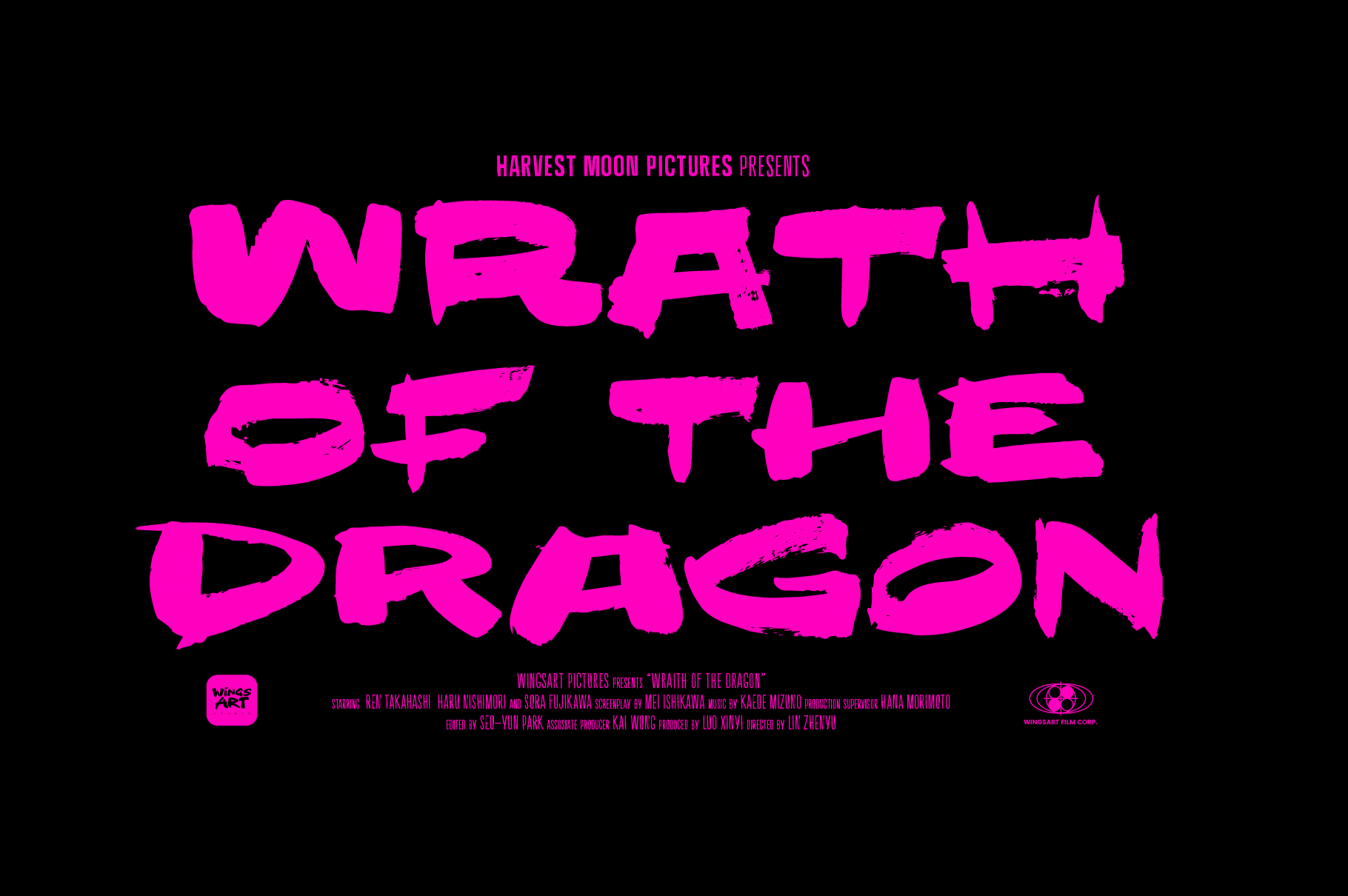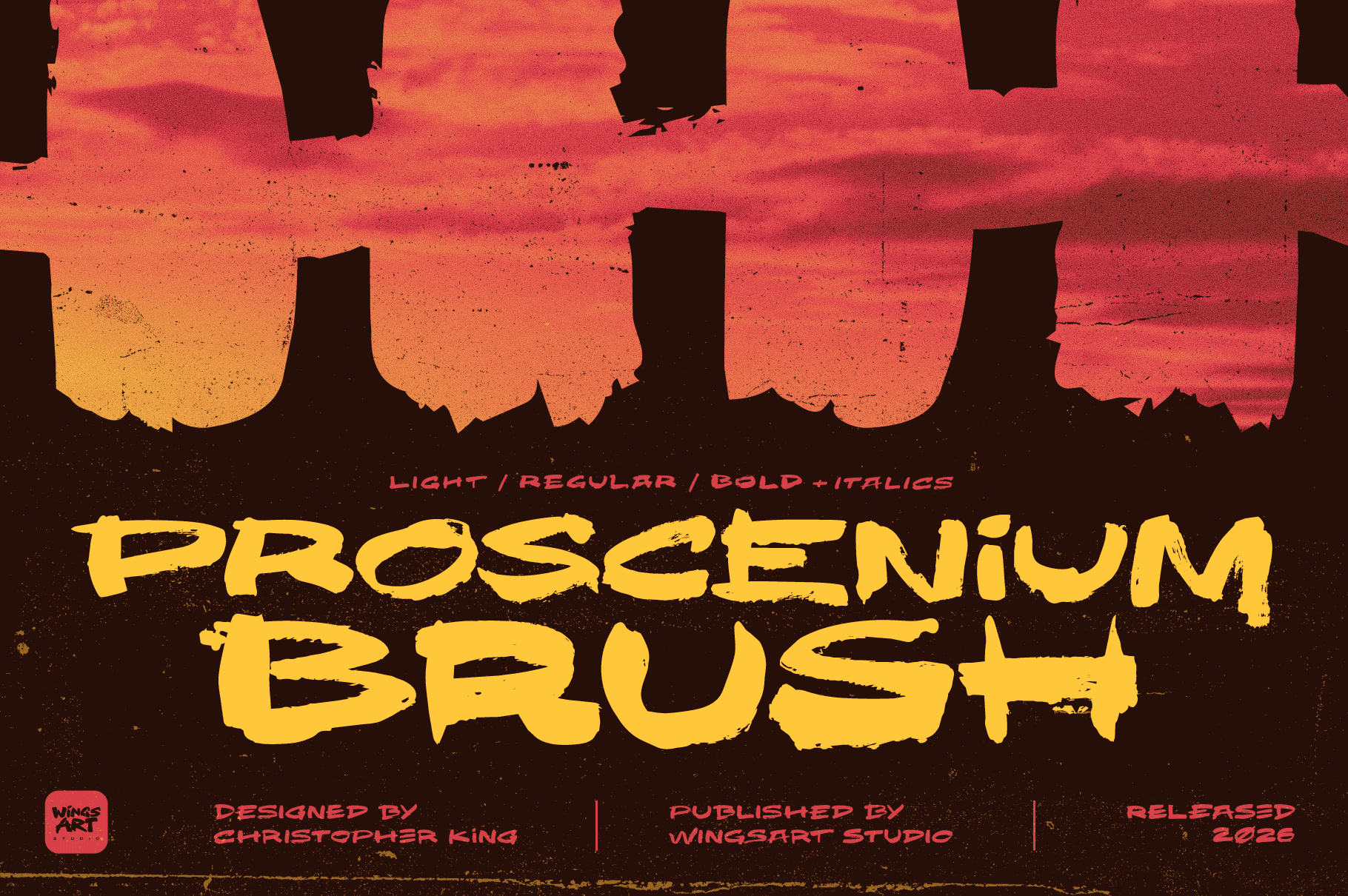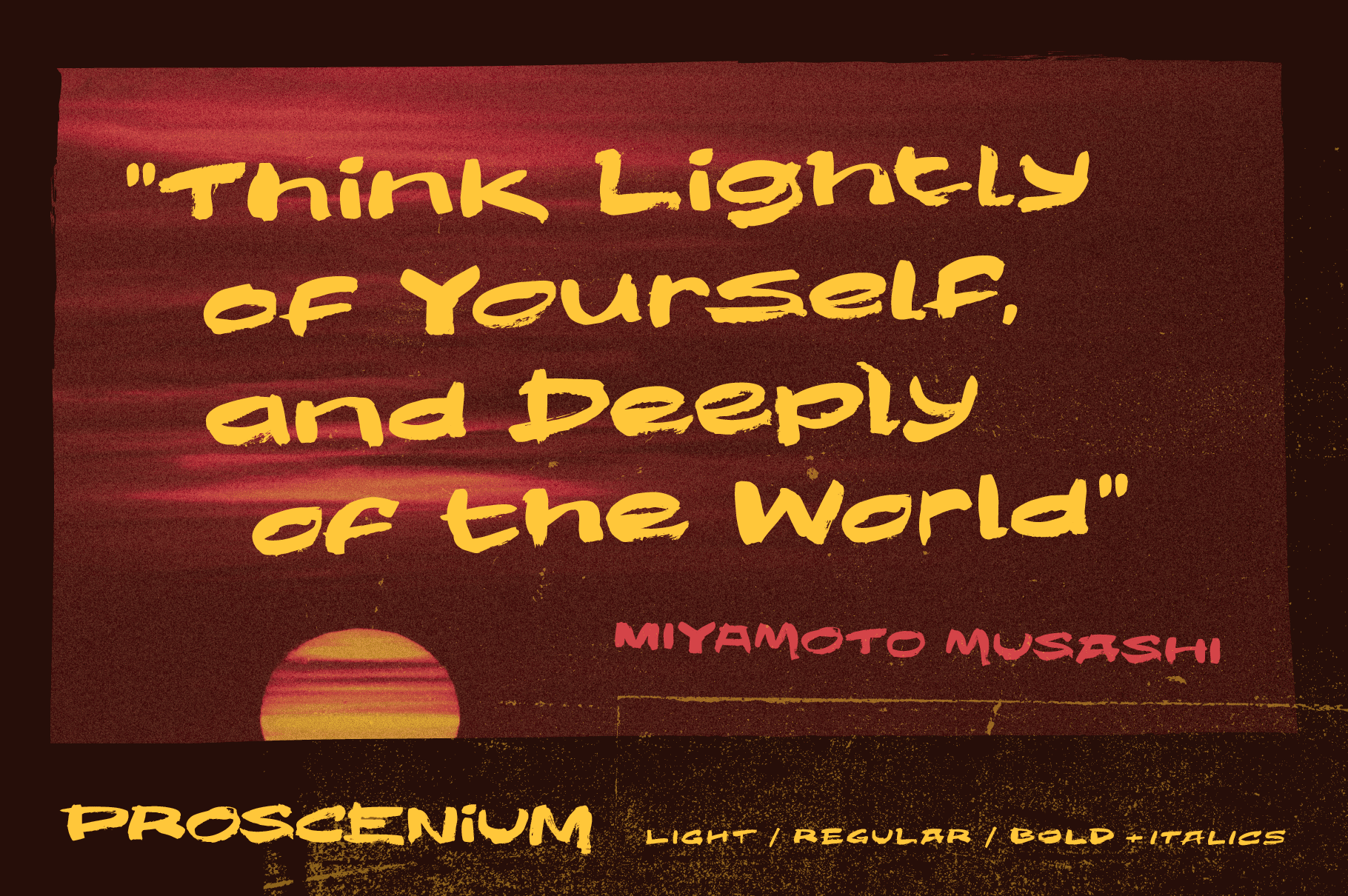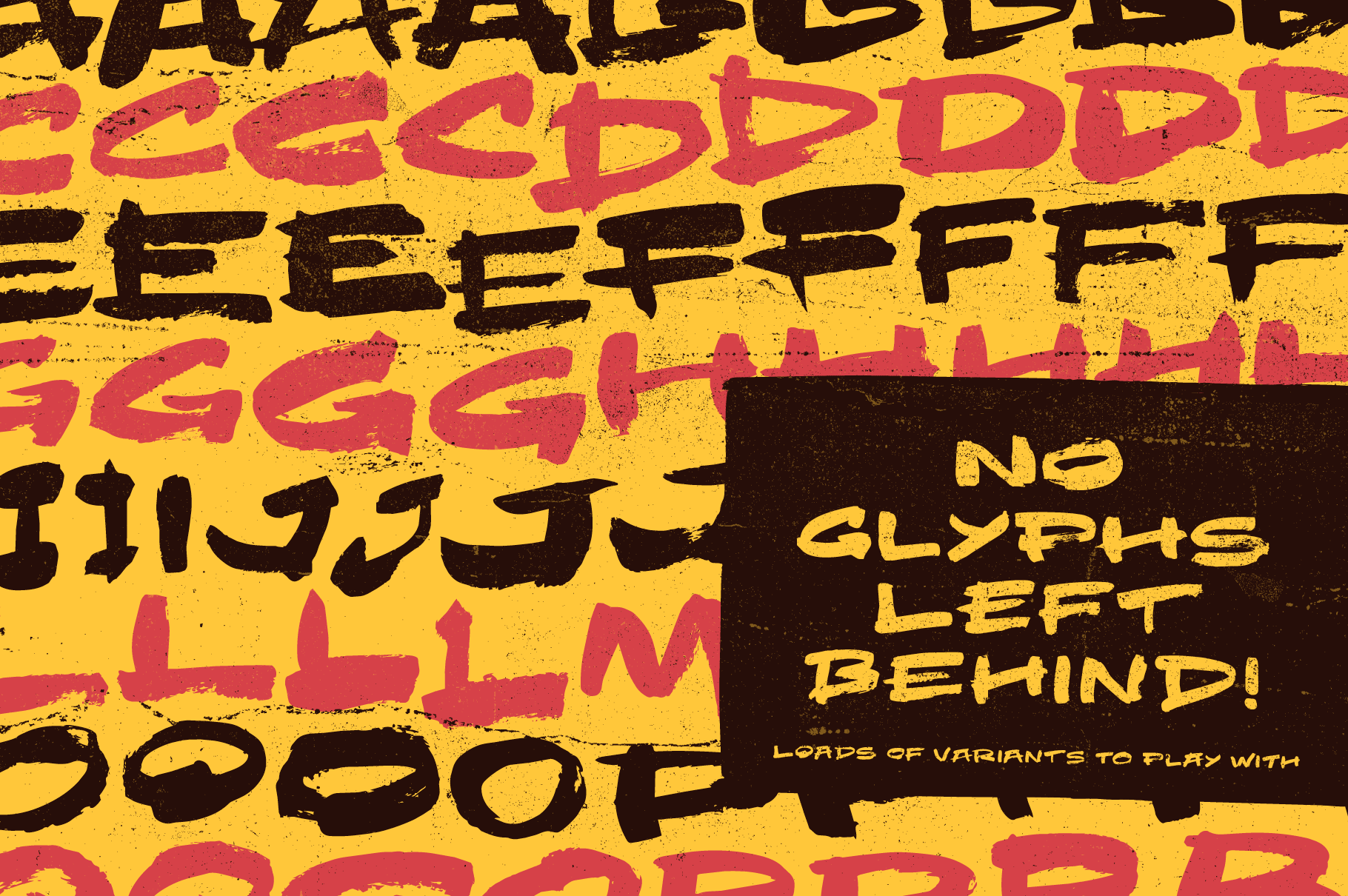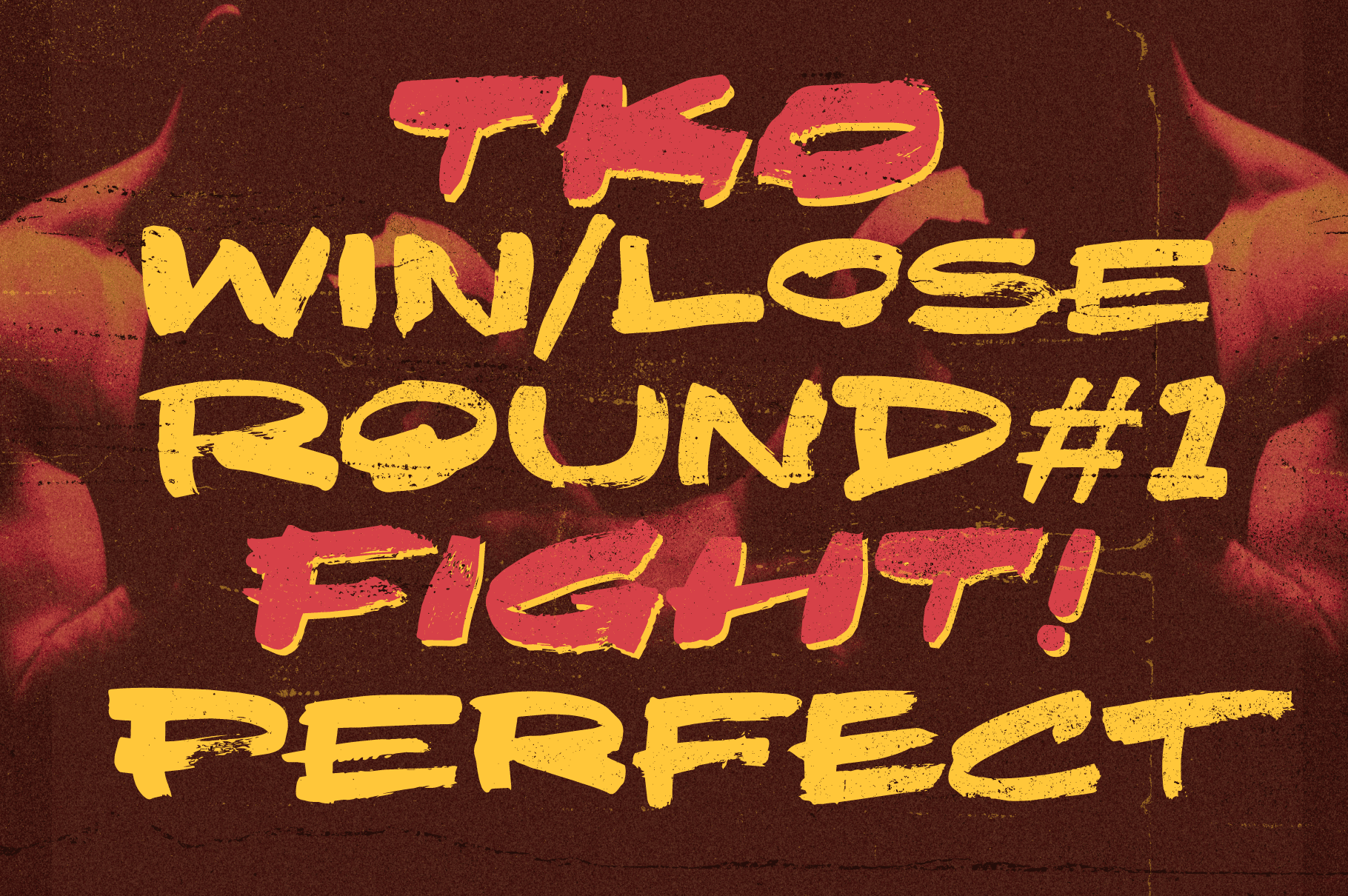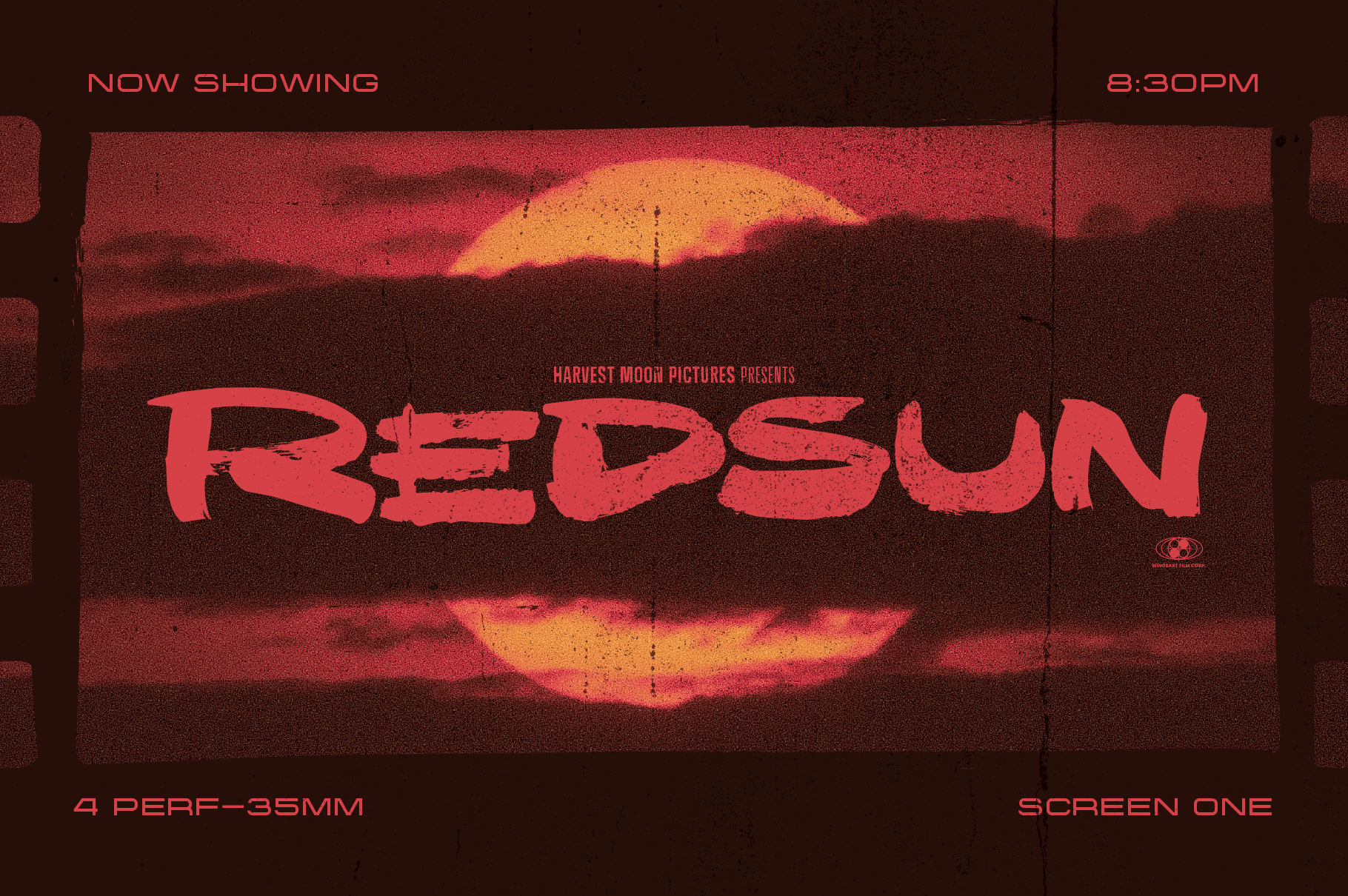
Zen and the Art of Brush Fonts
Proscenium Brush is the fifth member of the Proscenium series, taking the established rules and loosening them up with a swift dose of ink and paint! The result is a font destined for martial arts and grindhouse movies, with an epic presence that embraces the magic in human hands and rejects digital perfection.
Using ancient techniques passed down through generations, you too can master the art of kick-ass movie titles using these hand-drawn letters, and achieve enlightenment through the hidden forms held within. Search and you will find limitless skill at your fingertips while your opponents marvel at the dexterity of your headers!
Defeat uninspired design by applying your teaching to video games (obviously beat-em-ups), movie titles (ninjas!), album covers (it works surprisingly well on non-ninja stuff too), magazine articles, socials, and more.
It comes in three weights: Light, Regular, and Bold, each with two versions plus matching italics. All include complete uppercase and lowercase alphabets, numerals, punctuation, symbols, and multilingual support. Each font also comes with a complete set of alternatives for a masterful level of customisability. Add to this an additional Spares font (no glyphs left behind!) and Underlines, and you’ve got yourself a truly powerful tool.